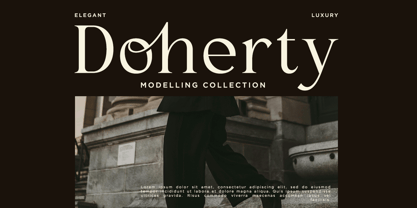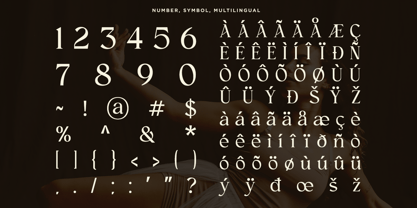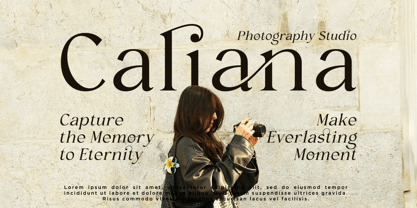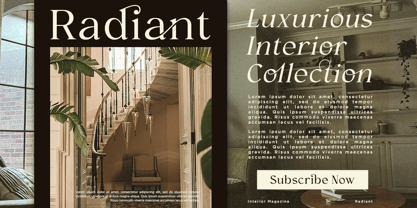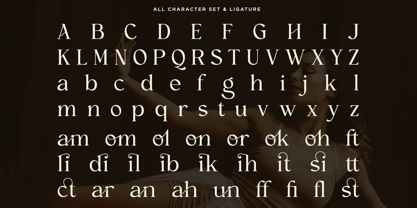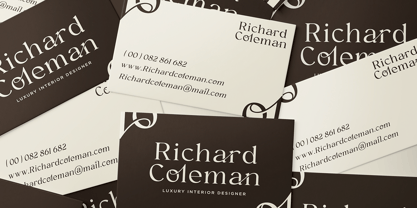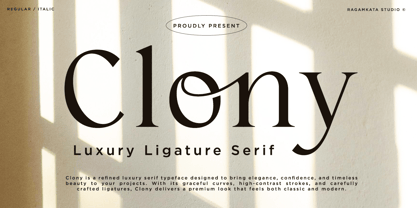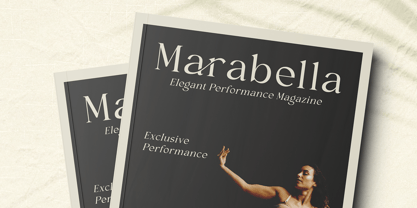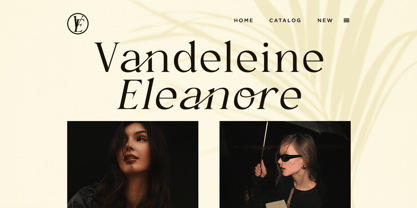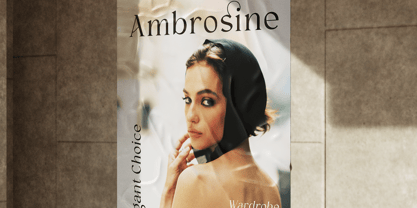
Clony
The Clony Font Family was designed by Yogiswhara Dio Prakoso Riadi and published by RagamKata. Clony contains 2 styles and family package options. More about this family
Clony is a luxury ligature serif typeface that embodies elegance, confidence, and timeless sophistication. Drawing inspiration from high-end editorial aesthetics and refined fashion branding, Clony seamlessly blends graceful curves with robust serif structures, resulting in a premium visual character that feels both classic and contemporary. With its high-contrast strokes and meticulously crafted ligatures, Clony offers a distinctive personality that enhances headlines, logos, and display typography. Each letterform is designed to flow naturally, providing a smooth rhythm and refined balance that improves readability while exuding a luxurious presence. Ideal for fashion brands, editorial layouts, premium packaging, wedding designs, and upscale visual identities, Clony empowers designers to convey exclusivity and style. Whether utilized in print or digital media, this serif typeface delivers a polished, editorial-ready finish to sophisticated creative projects. Thank You for your Visit ! Ragamkata